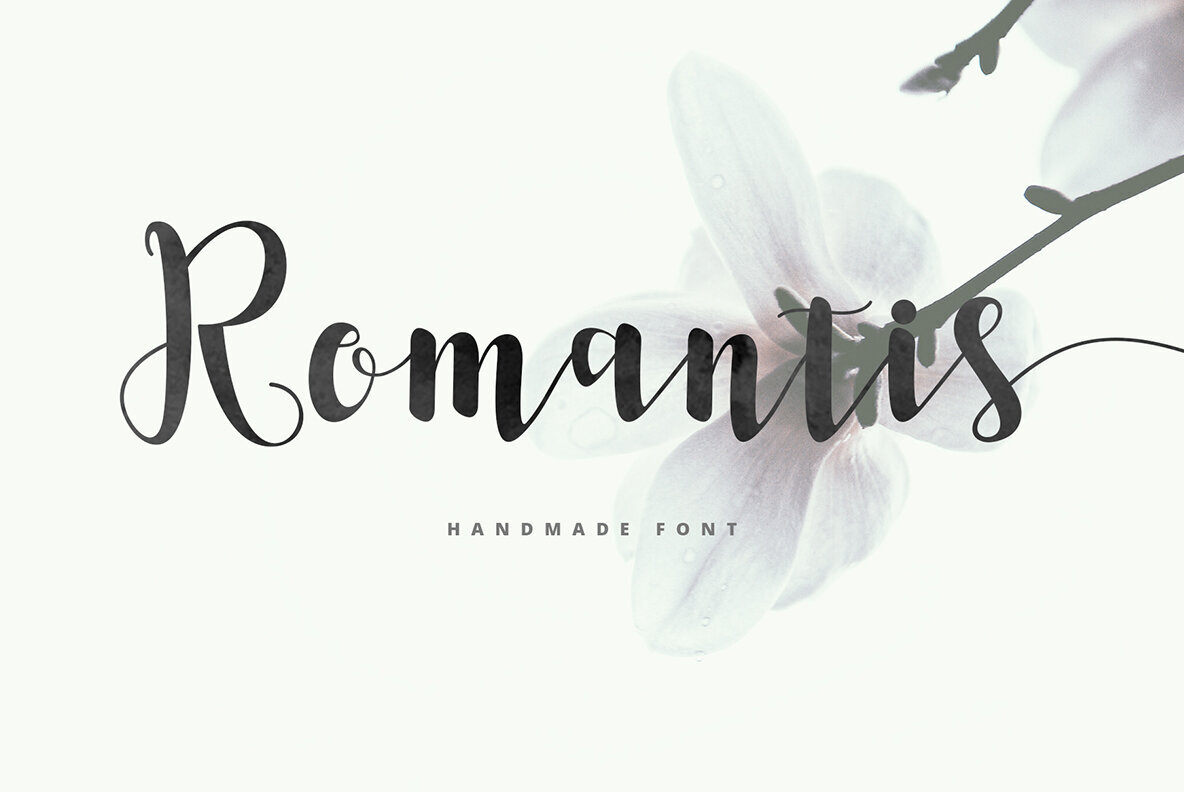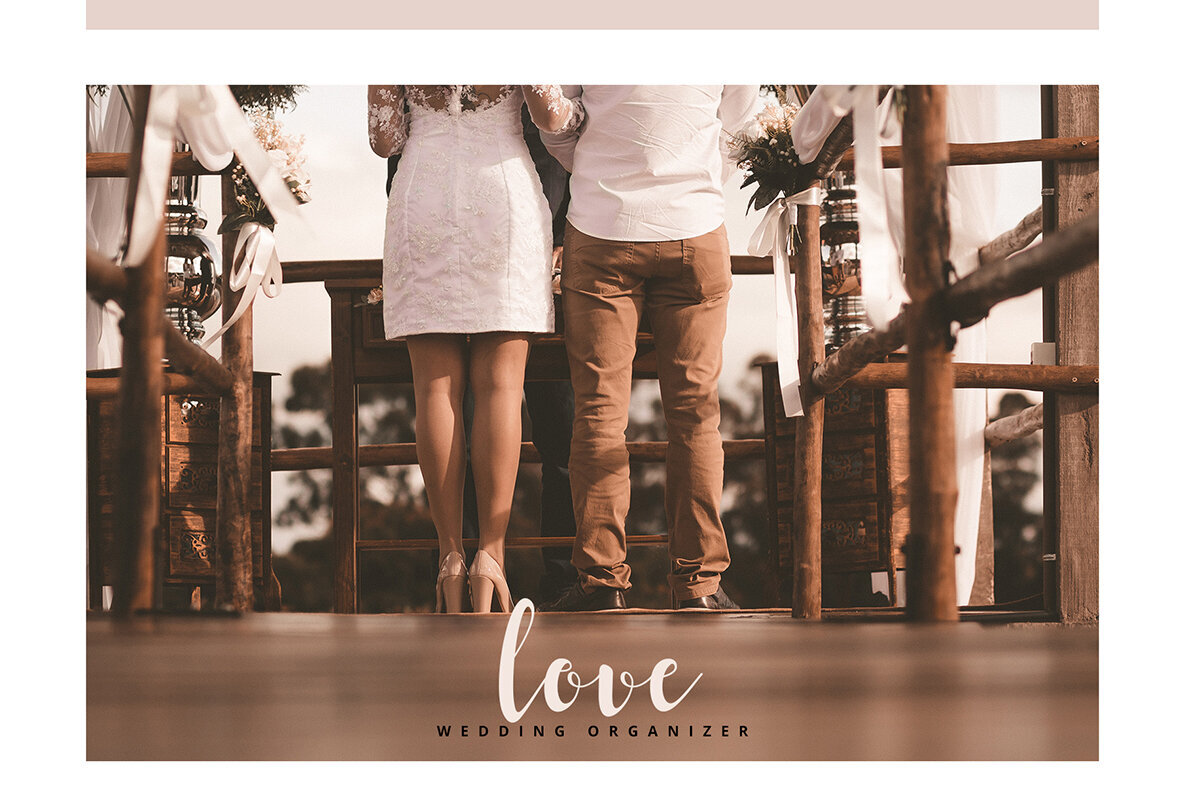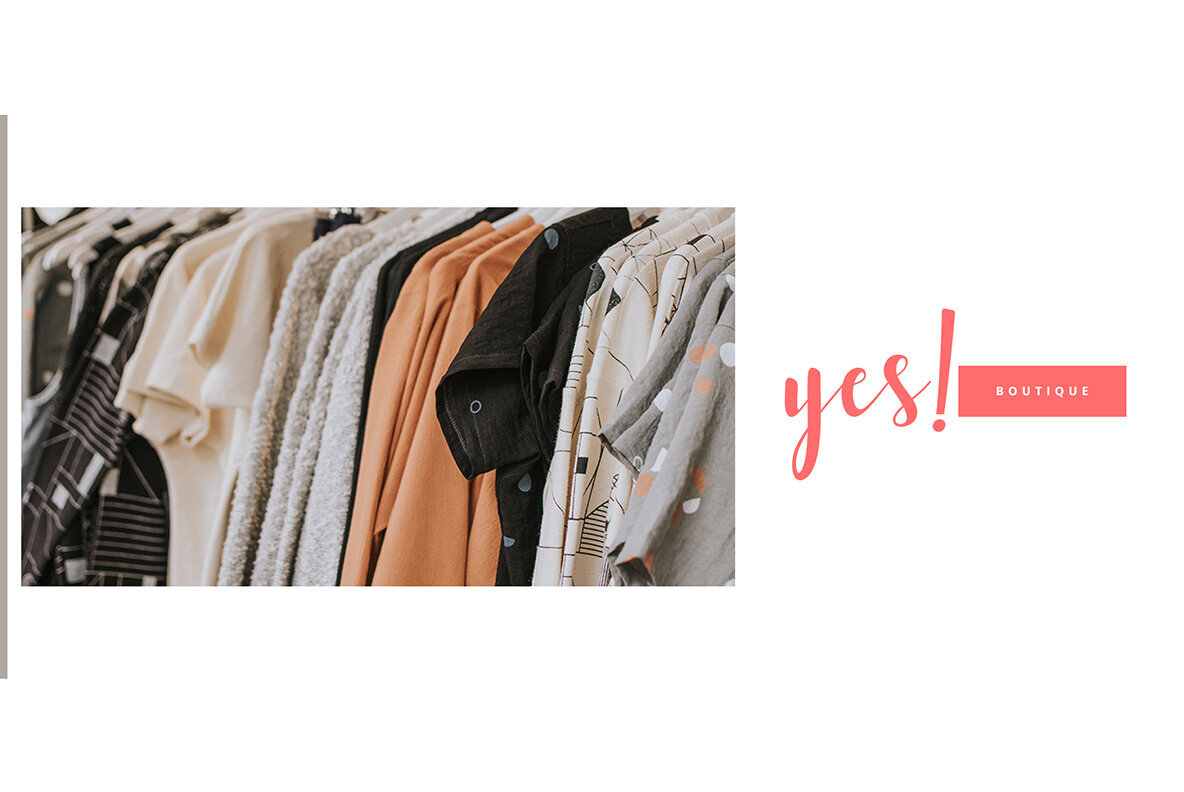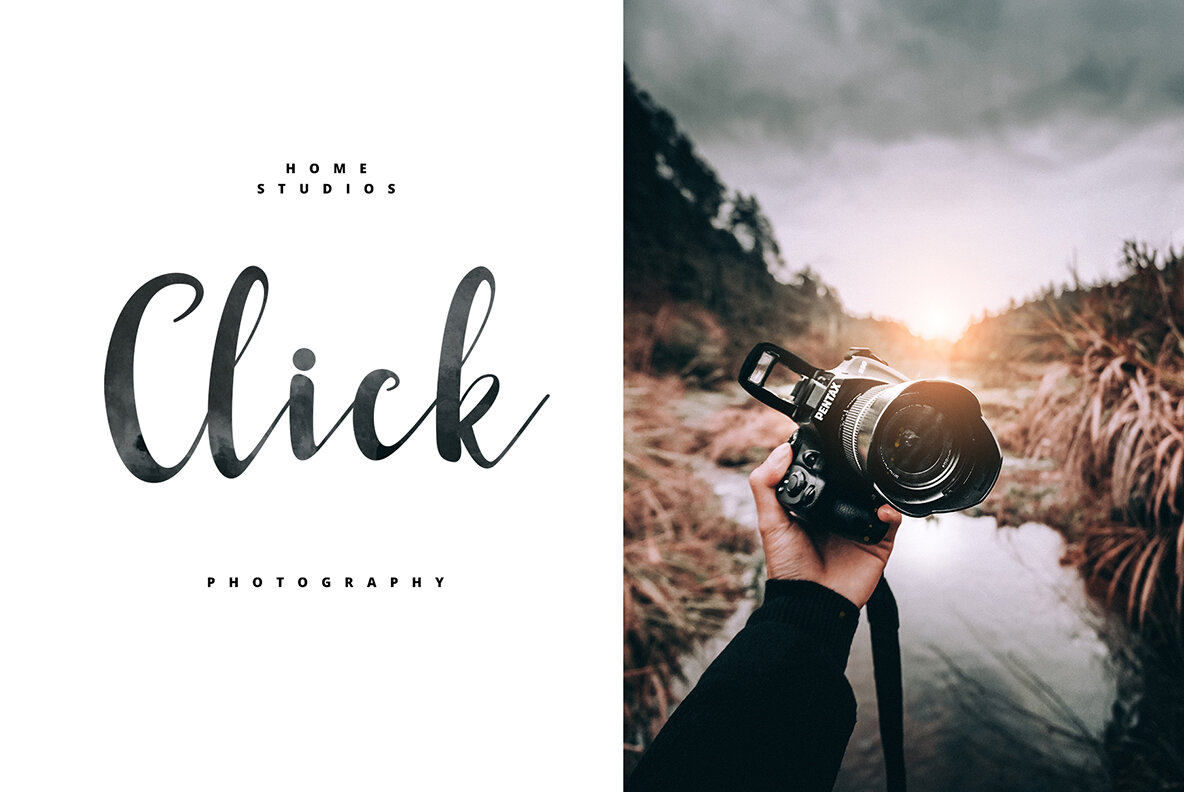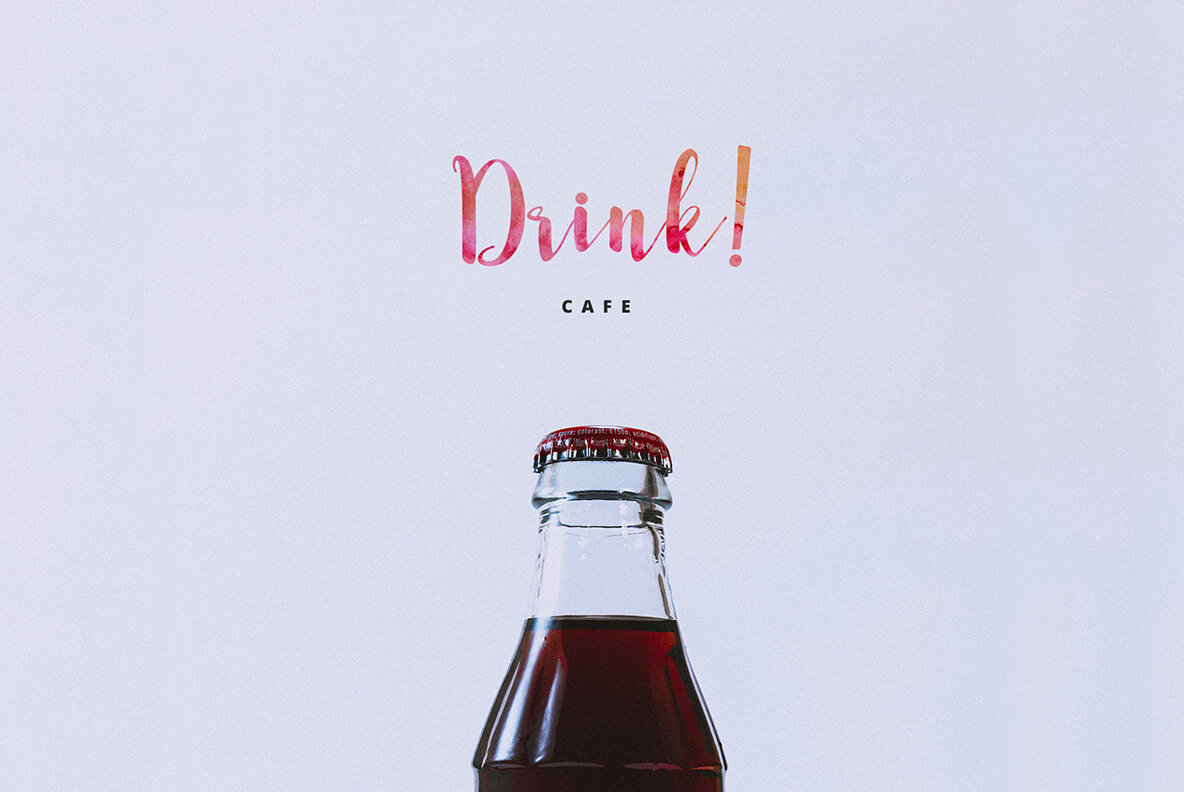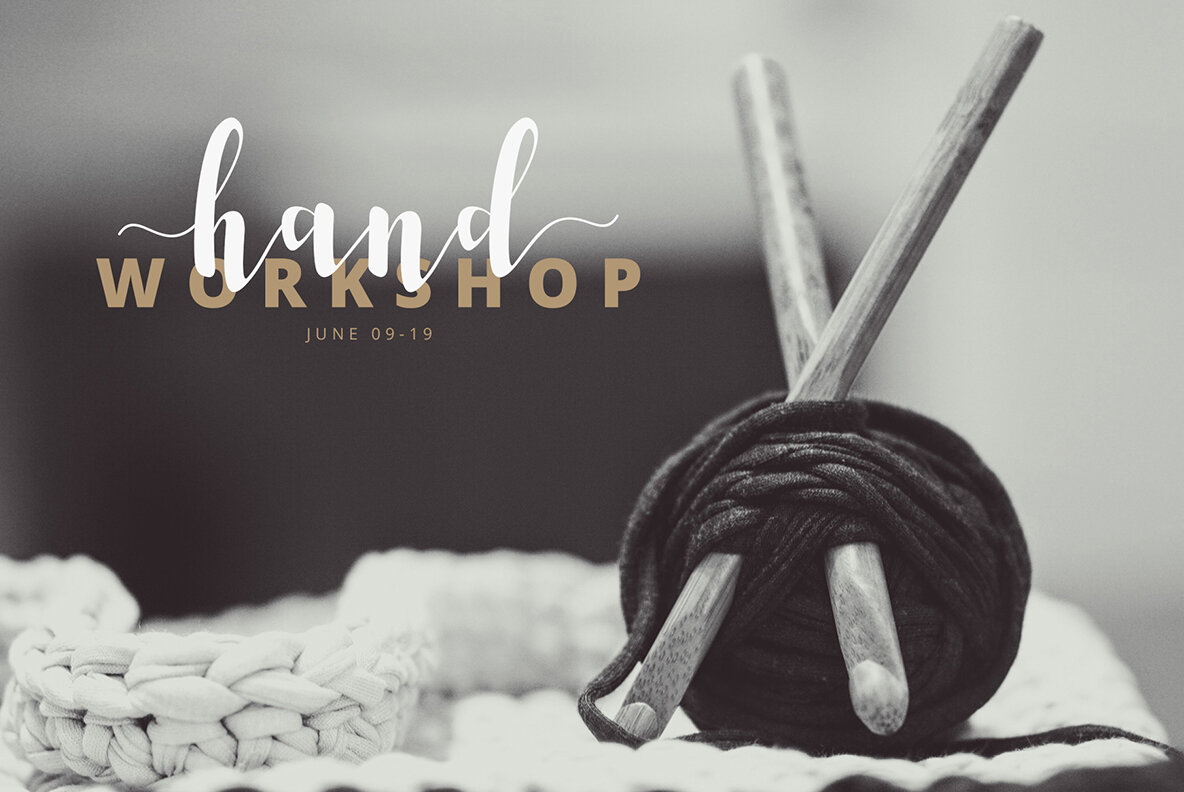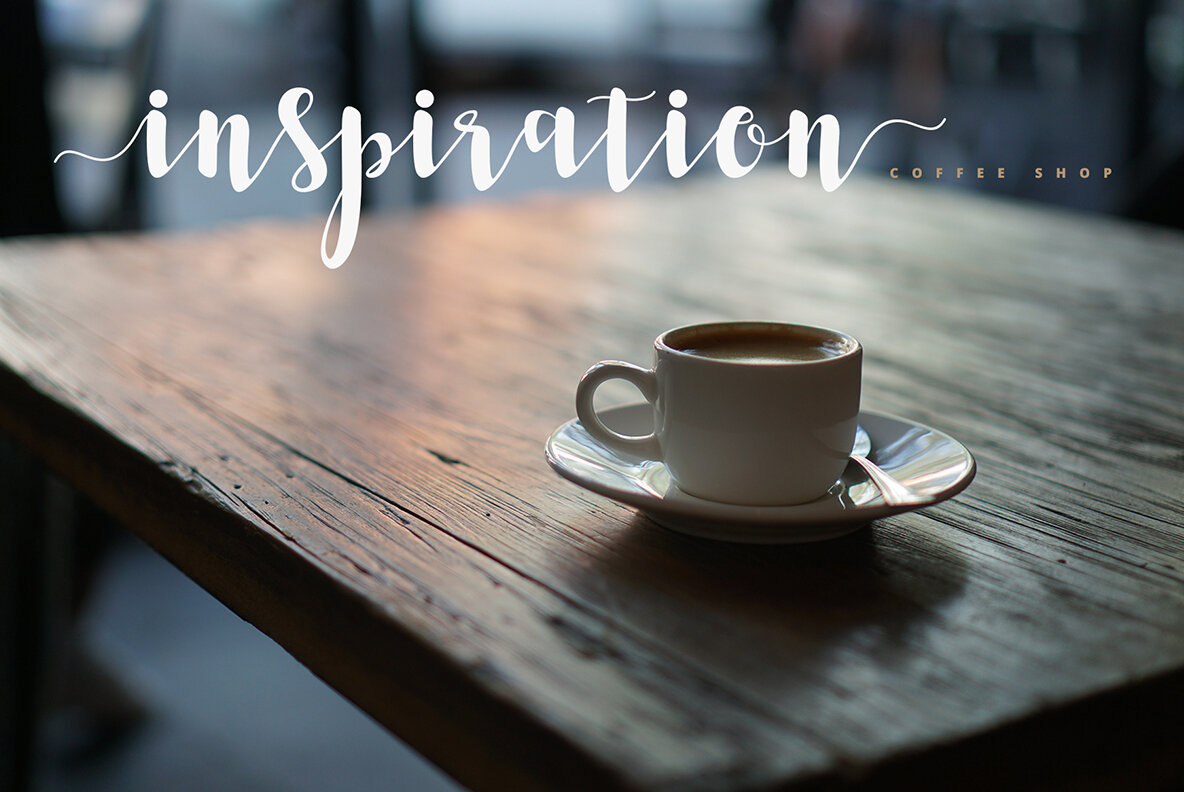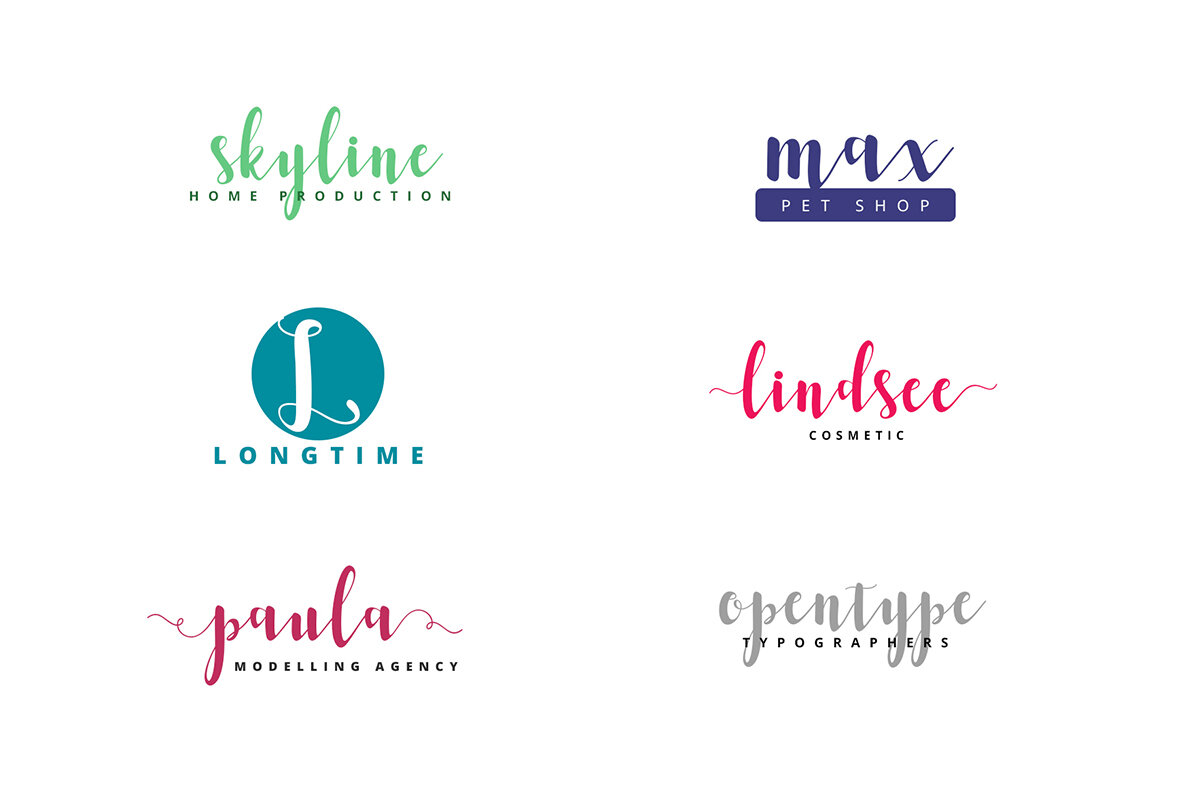
Romantis Font
Romantis Script
Romantis Script by FadeLine Studio is a sophisticated connecting script designed to exude elegance and style. Perfectly suited for fashion brands, e-commerce sites, and trend blogs, it offers a classy and chic aesthetic. This versatile font is an excellent choice for projects aiming to make a lasting impression.Romantis Script: Elegance in Typography
Perfect for Diverse Applications